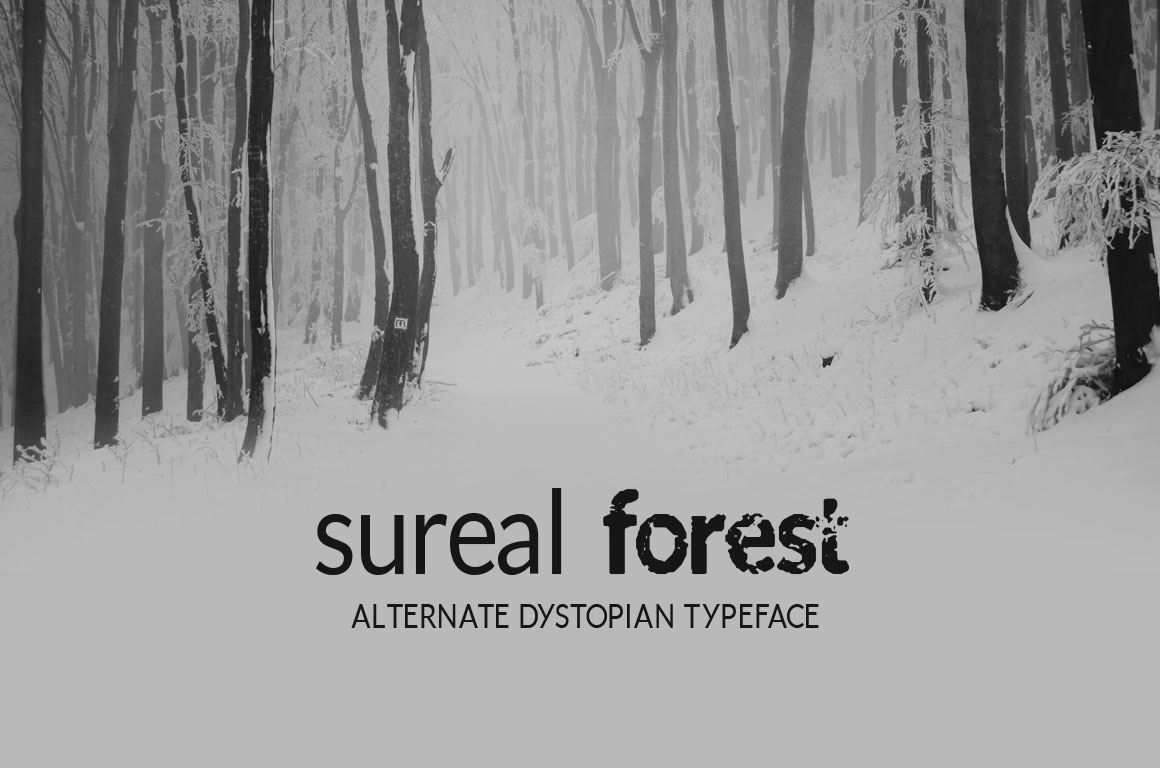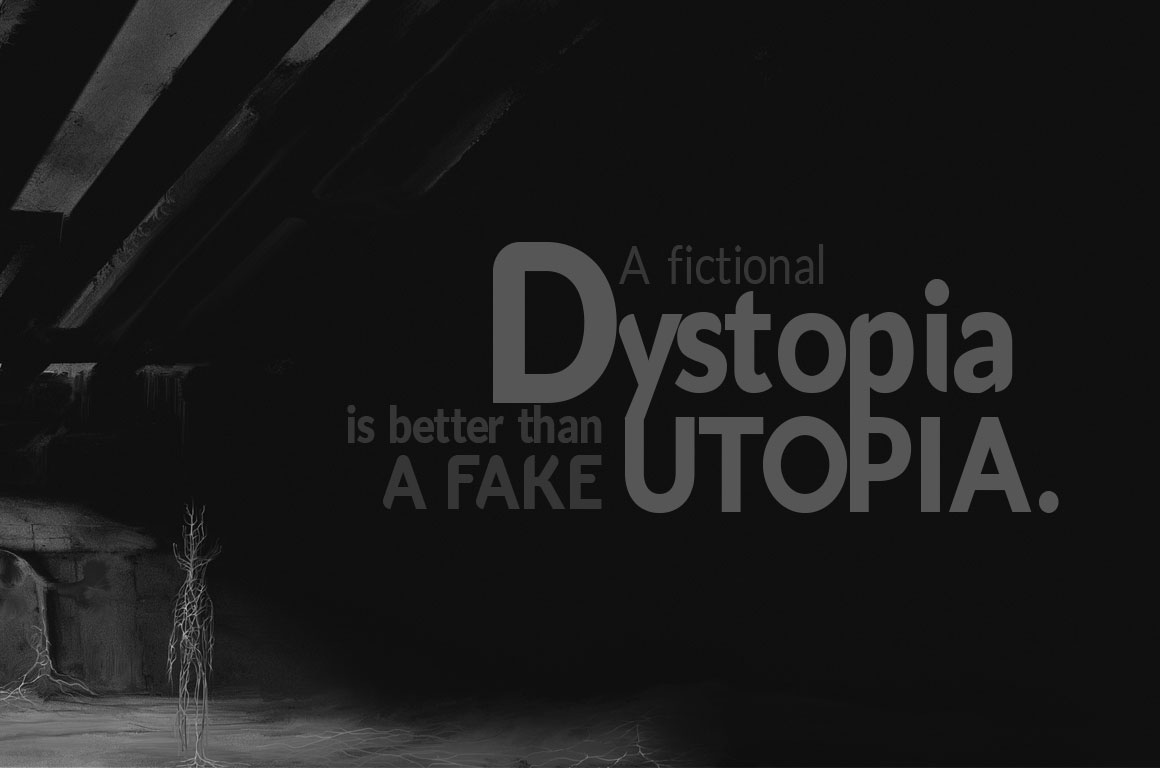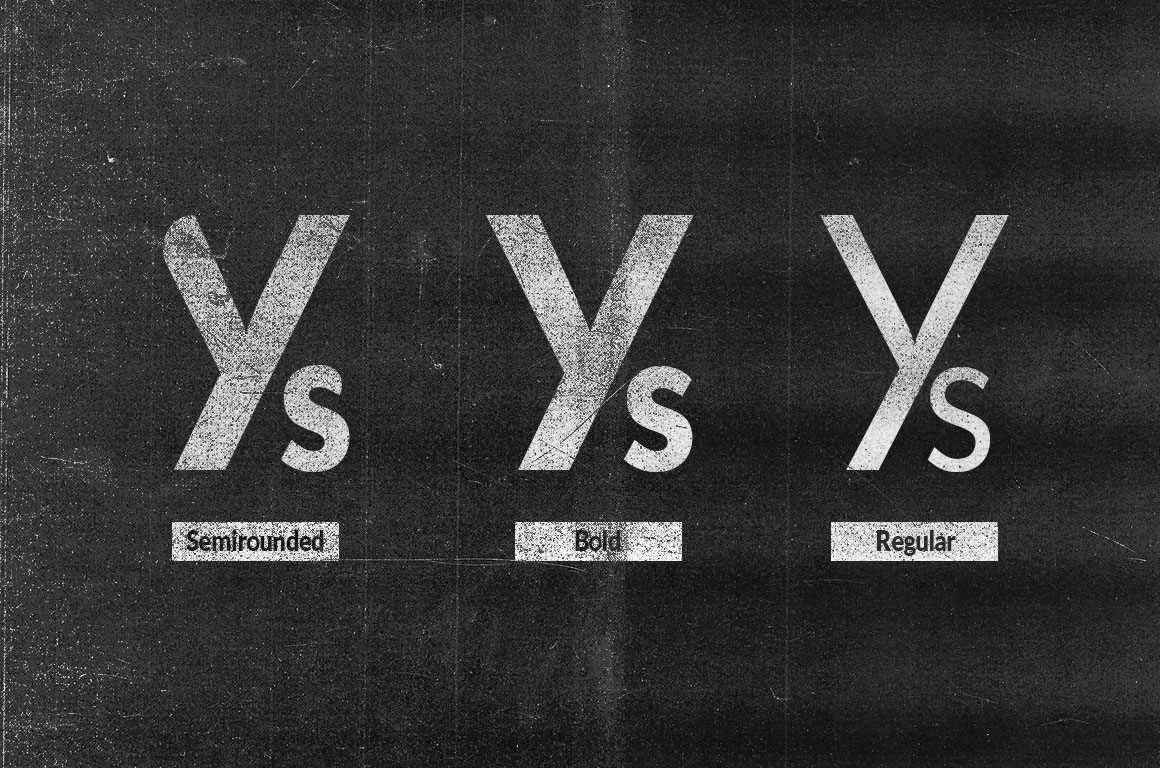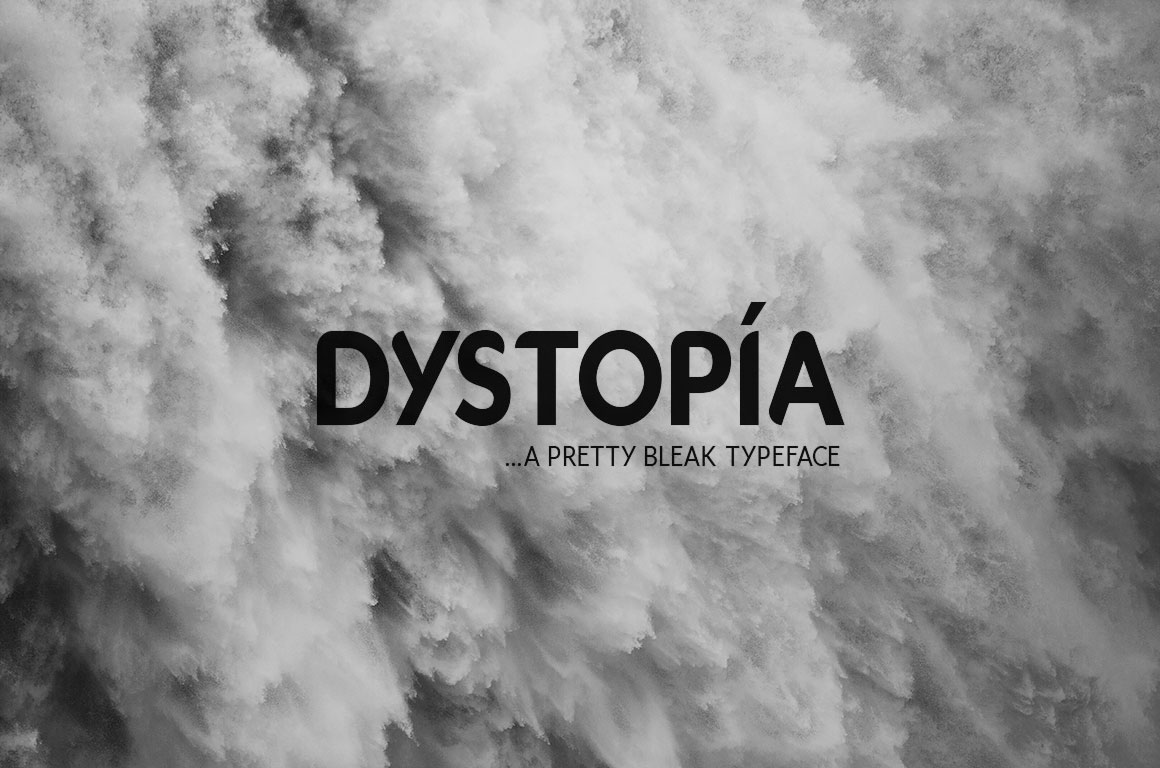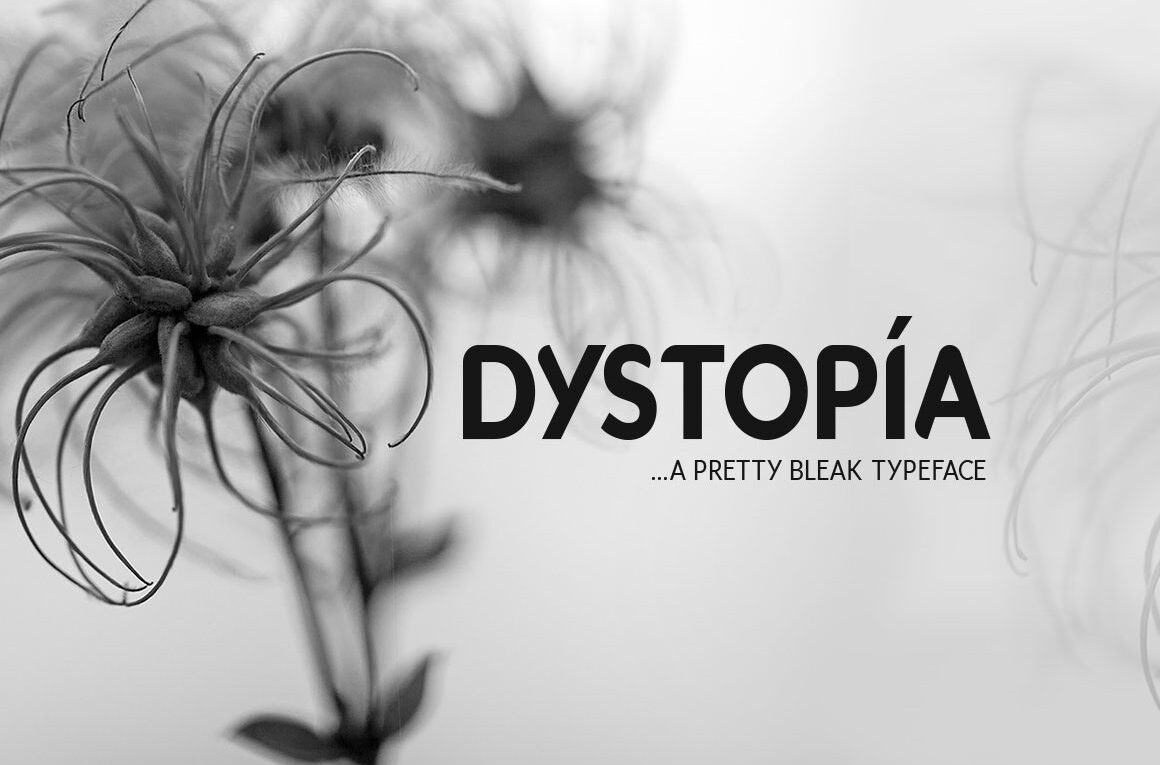
Dystopia Typeface Font: A Unique Blend of Classic and Grungy
In the world of typography, a new font family has emerged that is sure to capture the attention of designers and crafters alike. Introducing the Dystopia Typeface Font, a small but versatile family of four beautiful sans serif fonts. This innovative font family seamlessly combines classic typography with modern grungy lettering, making it a perfect addition to any design project.
The Dystopia Family: Four Fonts to Explore
The Dystopia font family consists of four distinct fonts, each with its own unique character. The family includes:
- Dystopia Regular: A clean and classic sans serif font, perfect for body text and designs that require a touch of sophistication.
- Dystopia Bold: A strong and confident font, ideal for headings and titles that demand attention.
- Dystopia Semirounded: A font that adds a touch of softness to the classic sans serif look, great for designs that require a subtle nuance.
- Dystopia Grungy Bold: A rough and rugged font that adds a modern grungy twist to the family, perfect for designs that require a bold and edgy look.
Classic Typography Meets Modern Grunge
The Dystopia font family is a masterful blend of classic typography and modern grungy lettering. The clean lines and simple shapes of the classic fonts are juxtaposed with the rough, textured look of the grungy font, creating a unique and eye-catching contrast. This blend of styles makes the Dystopia font family incredibly versatile, suitable for a wide range of design projects, from branding and advertising to packaging and digital media.
The Dystopia font family is a dream come true for designers and crafters who are looking for a font that can add a touch of sophistication and edge to their work. Whether you’re creating a logo, brochure, or website, the Dystopia font family has the perfect font to suit your needs. The fonts are easy to read and work well in a variety of sizes, making them ideal for both print and digital applications.
Key Features of the Dystopia Font Family
Here are some key features of the Dystopia font family:
- Unique blend of classic and grungy styles: The Dystopia font family combines the best of both worlds, offering a fresh and modern take on traditional typography.
- Highly versatile: With four distinct fonts to choose from, the Dystopia font family can be used for a wide range of design projects.
- Easy to read: The fonts are designed to be clear and legible, making them perfect for body text and other applications where readability is key.
- Scalable: The Dystopia font family works well in a variety of sizes, from small captions to large headings.
In conclusion, the Dystopia Typeface Font is a unique and versatile font family that is sure to capture the attention of designers and crafters alike. With its blend of classic typography and modern grungy lettering, this font family is perfect for a wide range of design projects. Whether you’re looking for a font that exudes sophistication and elegance or boldness and edge, the Dystopia font family has something to offer.